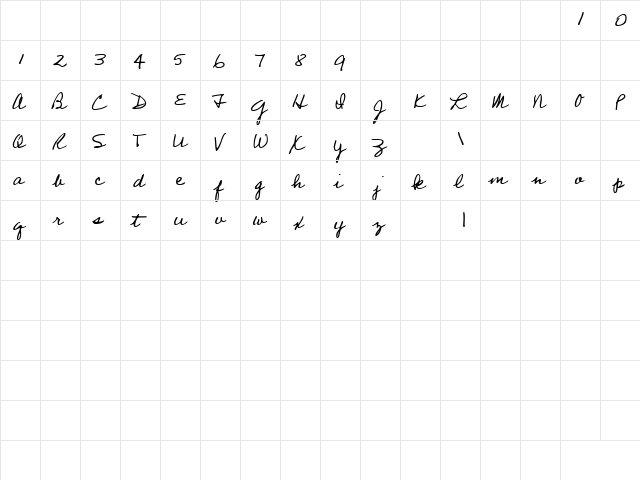
Professor Regular
Design Context for Professor Typeface
Professor takes a measured approach to typography — its balanced proportions and neutral character make it a reliable workhorse for both digital and print work.